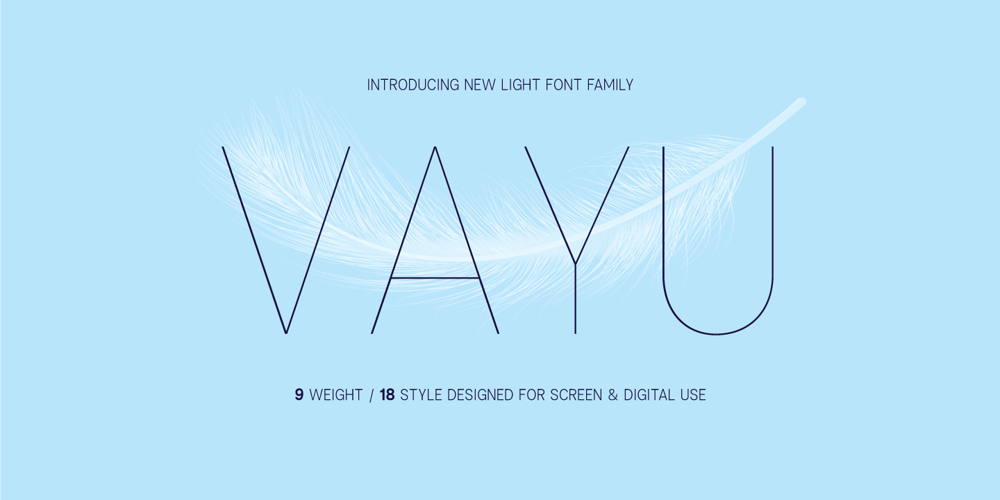
Vayu Sans
Vayu Sans font
Vayu Sans Font Family was designed by Gunjan Panchal and published by Gunjan. Vayu Sans contains 18 styles and family package options. Vayu(air) Sans is light typeface family. The complete family design comes with 9 weights and 9 matching italics.The fluent functionality of Vayu(air) is created keeping in mind contextual and stylistic alternatives. Which perfectly suits all areas of graphic design such as branding, identity design, especially digital use. It works great for web, corporate as well as editorial design.The standard numerals set encompasses figures and symbols, numerators and denominators, plus fractions. Approach of this typeface is to introduce light weight family. Thin master weight is 5 point size. Designed keeping in mind all kinds of scales and purposes of design aspects.